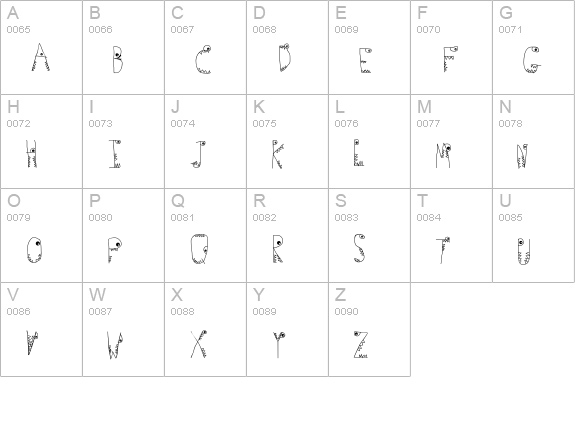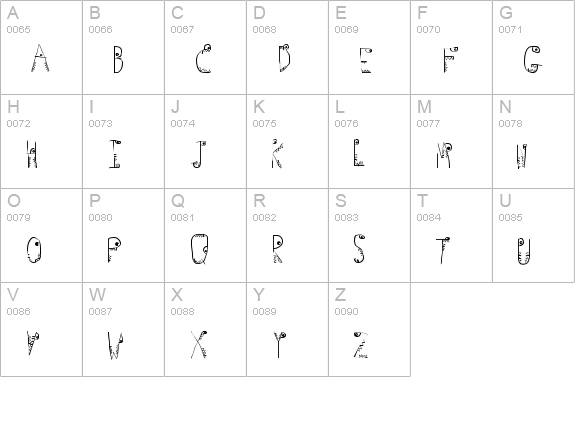
Germs Font Details
Germs font is a unique and quirky typeface designed to add a playful touch to your projects. With its irregular shapes and uneven lines, Germs font exudes a sense of creativity and originality. This font is perfect for designs that require a fun and casual look, such as children's books, greeting cards, or event invitations. One of the best features of Germs font is that it is completely free to use. You can easily download Germs font at FontsMarket.com and start using it in your projects right away. Whether you are a designer looking for a fresh new font to add to your collection or someone in need of a fun and eye-catching typeface for a specific project, Germs font is a great choice. With its bold and dynamic appearance, Germs font will surely make your designs stand out and leave a lasting impression on your audience. So why wait? Download Germs font today and let your creativity shine with this free and versatile typeface.